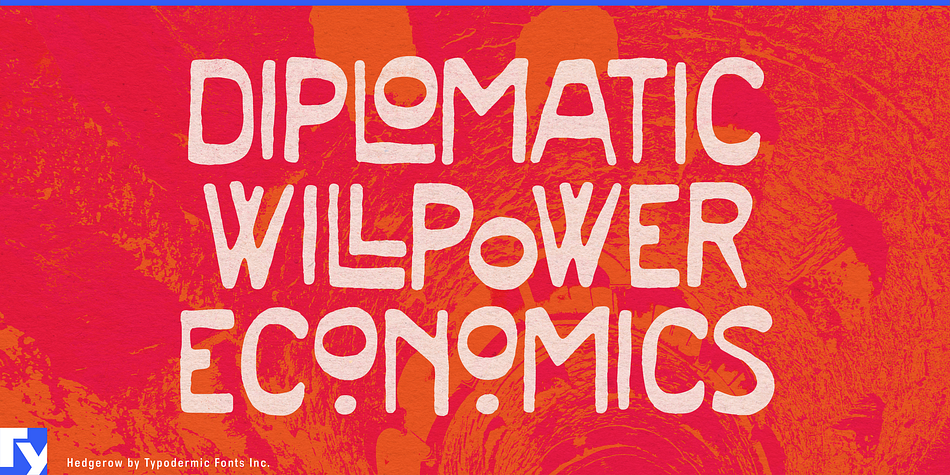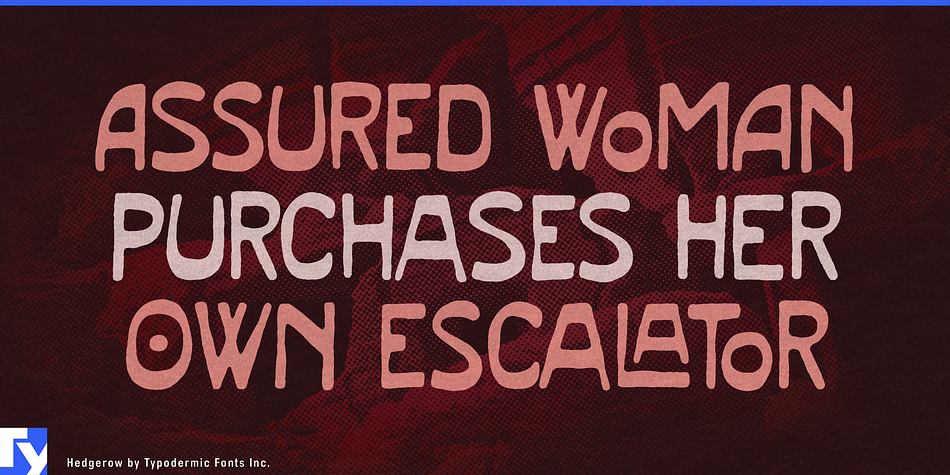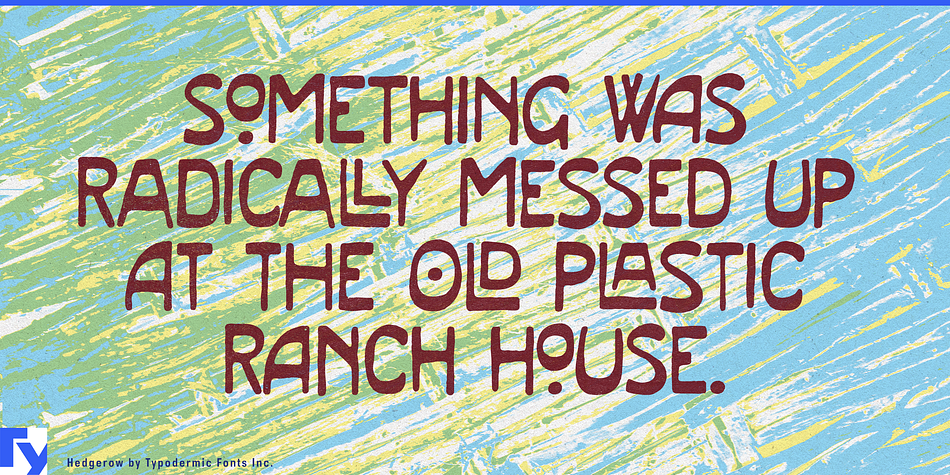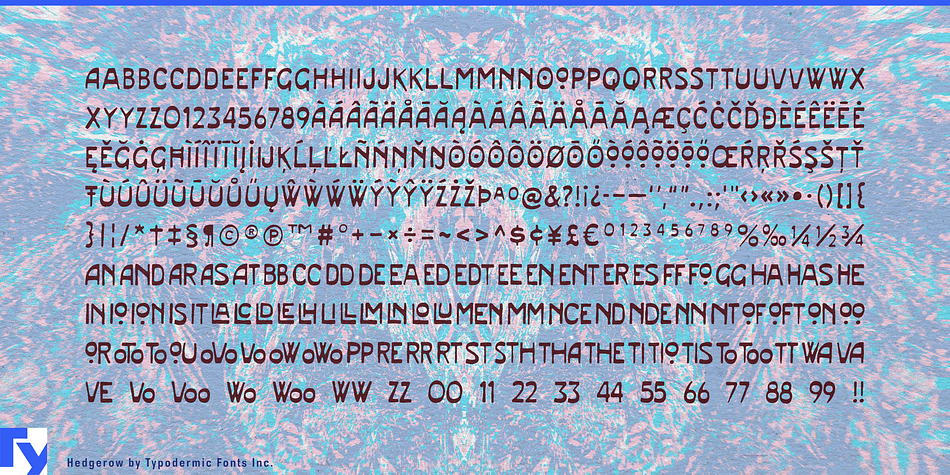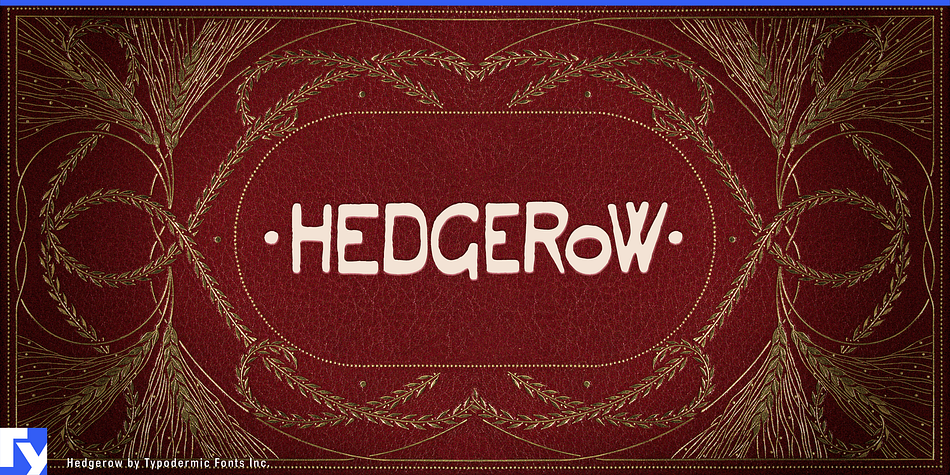
Hedgerow is a hand display font published by Typodermic Fonts Inc.
Hedgerow is calligraphic lettering with an Art Nouveau tone. Provoked by the liner notes of Led Zeppelin IV, Hedgerow imbues words with a mystical, bewitching voice. In OpenType savvy applications, some letter combinations are automatically replaced by capricious interlocking character pairs. Most Latin-based European writing systems are supported, including the following languages. Afaan Oromo, Afar, Afrikaans, Albanian, Alsatian, Aromanian, Aymara, Bashkir (Latin), Basque, Belarusian (Latin), Bemba, Bikol, Bosnian, Breton, Cape Verdean, Creole, Catalan, Cebuano, Chamorro, Chavacano, Chichewa, Crimean Tatar (Latin), Croatian, Czech, Danish, Dawan, Dholuo, Dutch, English, Estonian, Faroese, Fijian, Filipino, Finnish, French, Frisian, Friulian, Gagauz (Latin), Galician, Ganda, Genoese, German, Greenlandic, Guadeloupean Creole, Haitian Creole, Hawaiian, Hiligaynon, Hungarian, Icelandic, Ilocano, Indonesian, Irish, Italian, Jamaican, Kaqchikel, Karakalpak (Latin), Kashubian, Kikongo, Kinyarwanda, Kirundi, Kurdish (Latin), Latvian, Lithuanian, Lombard, Low Saxon, Luxembourgish, Maasai, Makhuwa, Malay, Maltese, Māori, Moldovan, Montenegrin, Ndebele, Neapolitan, Norwegian, Novial, Occitan, Ossetian (Latin), Papiamento, Piedmontese, Polish, Portuguese, Quechua, Rarotongan, Romanian, Romansh, Sami, Sango, Saramaccan, Sardinian, Scottish Gaelic, Serbian (Latin), Shona, Sicilian, Silesian, Slovak, Slovenian, Somali, Sorbian, Sotho, Spanish, Swahili, Swazi, Swedish, Tagalog, Tahitian, Tetum, Tongan, Tshiluba, Tsonga, Tswana, Tumbuka, Turkish, Turkmen (Latin), Tuvaluan, Uzbek (Latin), Venetian, Vepsian, Võro, Walloon, Waray-Waray, Wayuu, Welsh, Wolof, Xhosa, Yapese, Zapotec Zulu and Zuni.